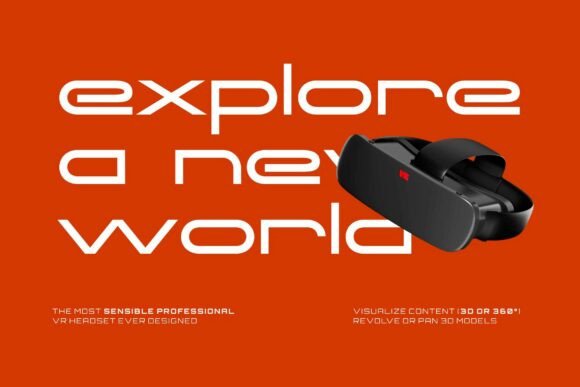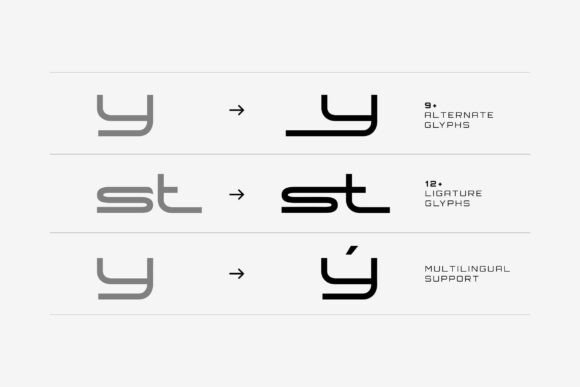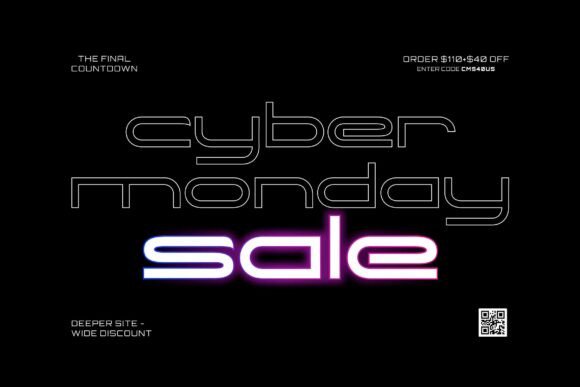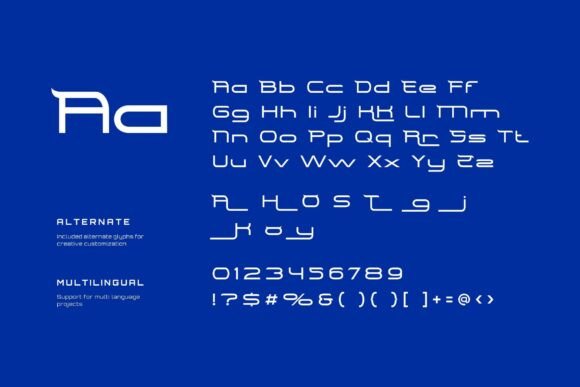
Introduction to Sagist Font Font
Fonts play a crucial role in design, and the Sagist Font font is a typeface that brings both character and versatility to any project. Whether you’re working on a branding project, a website, or a print design, the Sagist Font font offers a unique style that can elevate your work.
Sagist typeface is a powerful and sleek display font that embodies the spirit of the future.
Designed with a distinctively wide and geometric structure, Sagist commands attention and brings a high-tech, professional feel to any project The letterforms are crafted with precision, featuring clean, monolinear strokes and unique character cuts that create a sharp, futuristic aesthetic.
Key Features of Sagist Font Font
Why Choose Sagist Font Font?
The Sagist Font font is more than just a typeface – it’s a design tool that helps you communicate your message with style and clarity. Its unique character set and versatile design make it suitable for a wide range of applications, from elegant invitations to bold headlines.
With its carefully crafted letterforms and balanced proportions, the Sagist Font font ensures readability and visual appeal across all mediums.
What makes Sagist Font font special?
The Sagist Font font stands out with its unique design, exceptional readability, and versatility across various design applications.